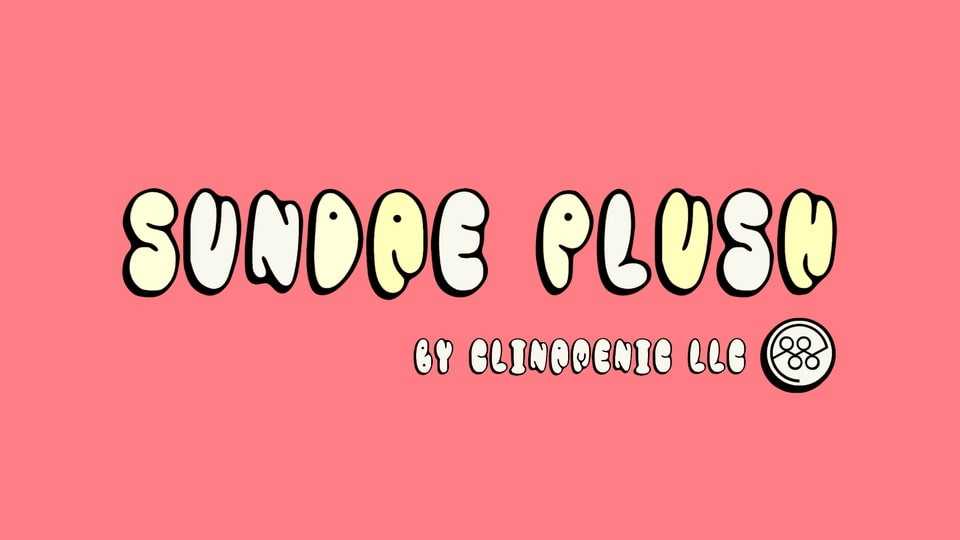
Download Sundae Plush font, a cartoon graffiti typeface designed to inject your designs with a playful and eye-catching burst of creativity. Sundae Plush is the font that fuses the whimsical charm of cartoons with the vibrant energy of graffiti art.
Designer: Clinamenic LLC